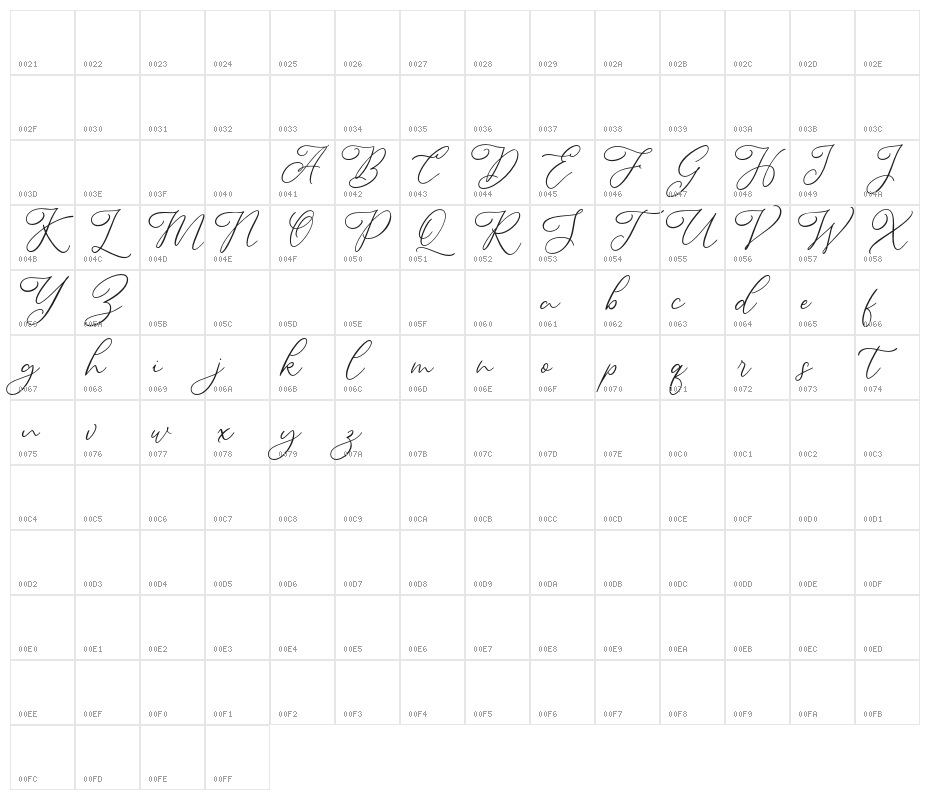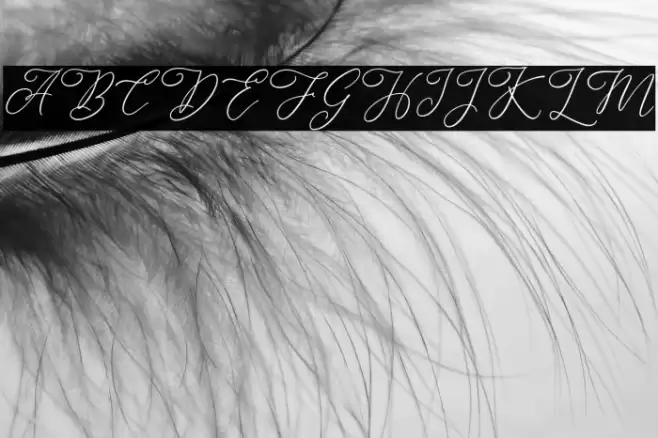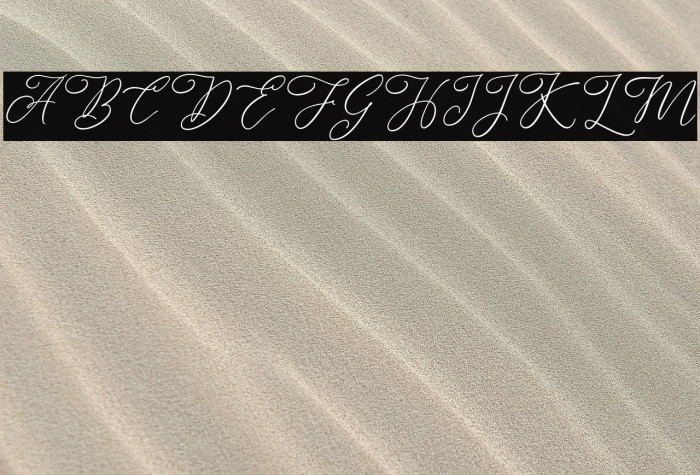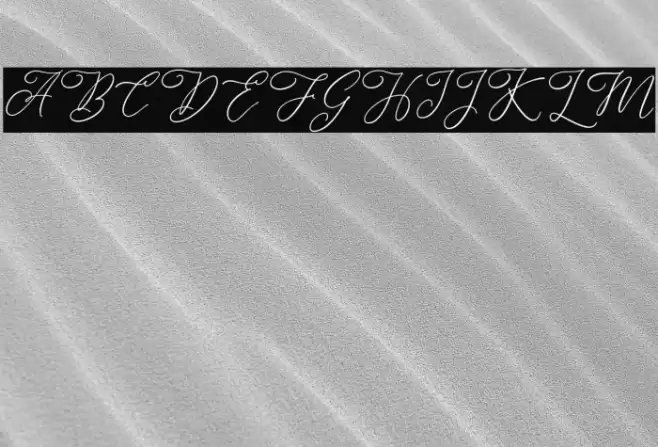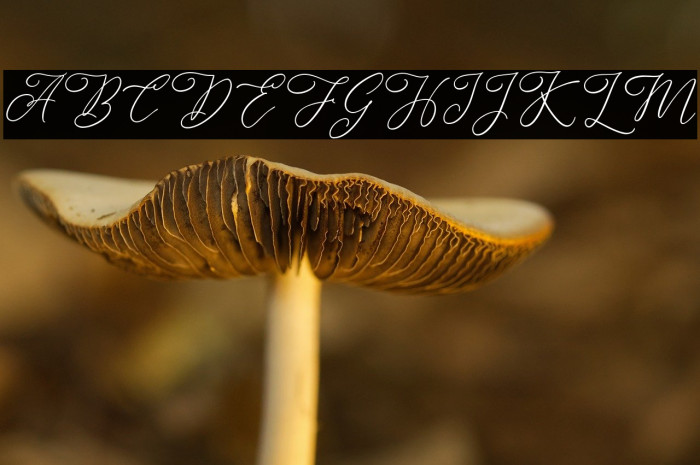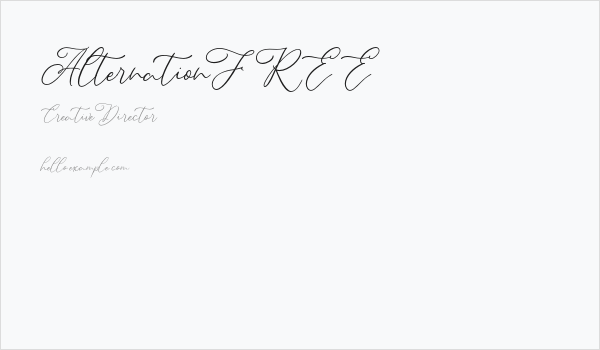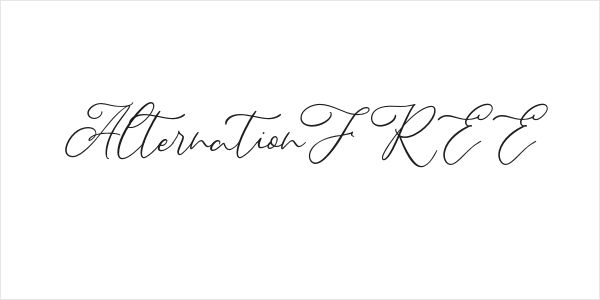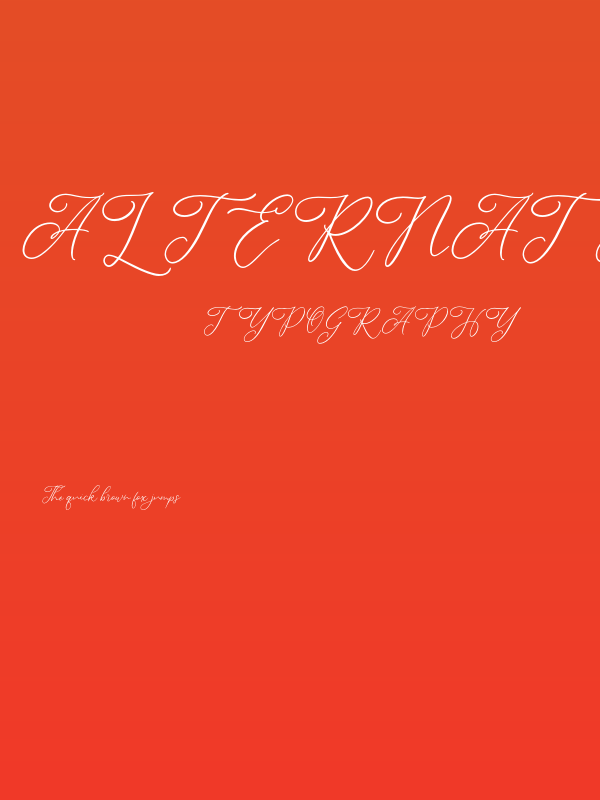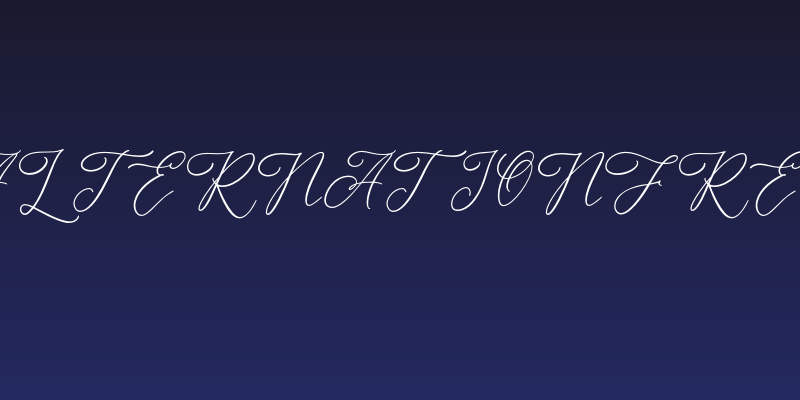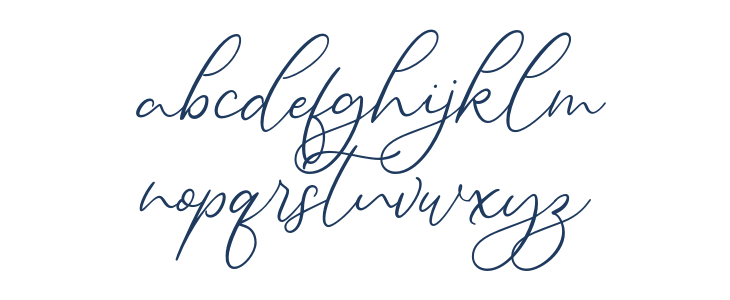
AlternationFREE Font
AlternationFREE Description
This elegant script font features flowing, interconnected letters with a refined and sophisticated appearance. The uppercase letters are characterized by their graceful loops and swirls, while the lowercase letters maintain a consistent fluidity that enhances readability. The font's design is reminiscent of classic calligraphy, with a modern twist that makes it suitable for contemporary use. Its delicate strokes and balanced proportions give it a timeless appeal, making it ideal for formal invitations, branding, and decorative purposes.
| Proposed Projects | Ideal for wedding invitations, elegant branding, greeting cards, and decorative signage. |